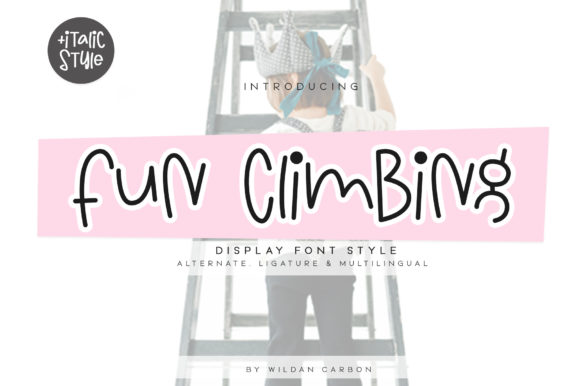
Fun Climbing Font
Download Fun Climbing Font for free! Created by Wildan Type and published by Trevor Feldman, this script font family is perfect for adding a unique touch to your designs.
Prepare to be swept off your feet by Fun Climbing Font, a captivating creation from the font enthusiasts at Wildan Type. This enchanting script font exudes a playful and inviting aura, making it an exceptional choice for infusing your creative endeavors with a touch of whimsical charm.
Immerse yourself in the world of brand-building with Fun Climbing Font, the perfect companion for crafting a unique and memorable brand identity. Let your imagination soar as you design eye-catching logos, captivating social media posts, and enchanting website banners that will leave a lasting impression on your audience.
Whether you're seeking to create inspirational wall posters or convey your brand's message with a touch of playfulness, Fun Climbing Font has got you covered. Its versatility knows no bounds, making it a font that adapts seamlessly to a myriad of creative projects.
Unleash your creativity and embark on a journey of self-expression with Fun Climbing Font. Allow its playful spirit to guide you as you craft designs that ignite joy and inspire connection. Every stroke of this font carries a burst of positive energy, sure to captivate your audience and leave them yearning for more.
Welcome Fun Climbing Font into your creative arsenal today and witness the transformation it brings to your designs. Its playful nature and endless possibilities will empower you to create captivating content that resonates with your audience and leaves a lasting mark on their hearts and minds.